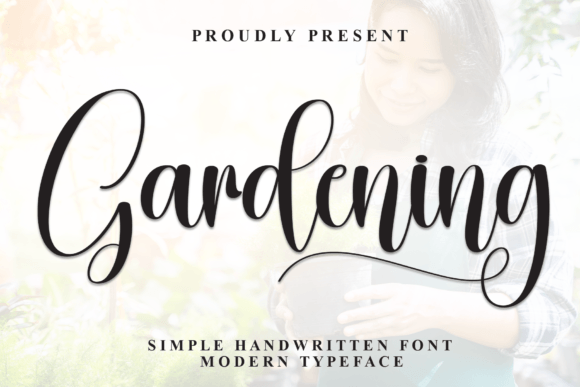
Planting the Seeds of Creativity: Introducing Gardening Font
As I sat in my garden, surrounded by the sweet scent of blooming flowers and the gentle hum of bees, I couldn’t help but feel inspired. The simple yet intricate beauty of nature sparked an idea – a handwritten font that captures the essence of gardening. And so, the Gardening Font was born.
This charming handwritten font is designed to evoke a sense of warmth and friendliness, making it perfect for invitations, quotes, and anything related to nature and gardening. Its flowing letters give it a personal touch, allowing designers to add a unique and organic feel to their projects.
For designers, the Gardening Font is a valuable addition to any typography collection. Its natural look and feel make it an ideal choice for branding, packaging, and editorial design projects that require a touch of whimsy and charm.
Gardening Font Key Features
- Font Family: Gardening Font is a unique, handwritten font designed specifically for gardening and nature-related themes.
- Unique Characteristics: The font features hand-drawn, whimsical elements and subtle imperfections, giving it a natural, organic feel.
Gardening Font Review
Overall, I think the Gardening Font is a solid choice for anyone looking to add some greenery to their digital projects. ✨ Here are a few things that work well:
- Unique aesthetic: The font’s organic, hand-drawn feel really captures the essence of gardening and nature.
- Customizability: The font comes with a range of variants and styles, making it easy to find the perfect look for your project.
- Legibility: Despite its whimsical feel, the font is surprisingly easy to read, even at smaller sizes.
- Limited language support: The font may not be suitable for projects that require support for languages with complex scripts or character sets.
- Some stylistic inconsistencies: While the font’s unique feel is part of its charm, some of the stylistic variations can feel a bit inconsistent or uneven.
Overall, I think the Gardening Font is a great choice for projects that need a touch of whimsy and natural charm. With its unique aesthetic and customizability, it’s a great option for designers looking to add some personality to their work. However, be aware of the limitations and consider whether this font is the right fit for your project.
Alternatives to “Gardening Font” for Designers
Great Vibes is a modern, elegant script font that is perfect for adding a touch of sophistication to designs. It works well for titles, headings, and quotes, and can be used in various contexts such as branding, packaging, and advertising.
Compared to Gardening Font, Great Vibes has a more refined and polished look, making it suitable for high-end designs. While Gardening Font has a more whimsical and playful feel, Great Vibes is more versatile and can be used in a wider range of applications.